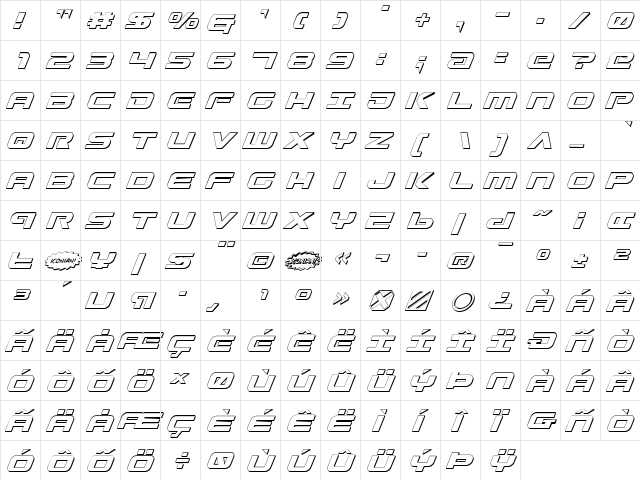
Gunship Shadow Ital Shadow Ital
Design Context for Gunship Shadow Ital Typeface
Gunship Shadow Ital is built around its visual character rather than neutral utility — its distinctive forms are designed to make an impression at display sizes.
Font Pairing: Pair with a clean neutral sans-serif for body copy to let Gunship Shadow Ital's character lead without overwhelming the composition.
Pro Tip: Treat Gunship Shadow Ital as the centrepiece of your typographic hierarchy. One strong heading set in a decorative face can carry an entire layout.